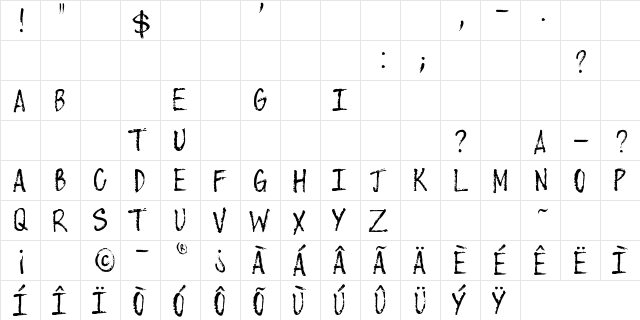
When You're Gone Regular
Design Context for When You're Gone Typeface
When You're Gone is a composed and adaptable typeface that performs quietly and consistently across a wide range of design contexts.